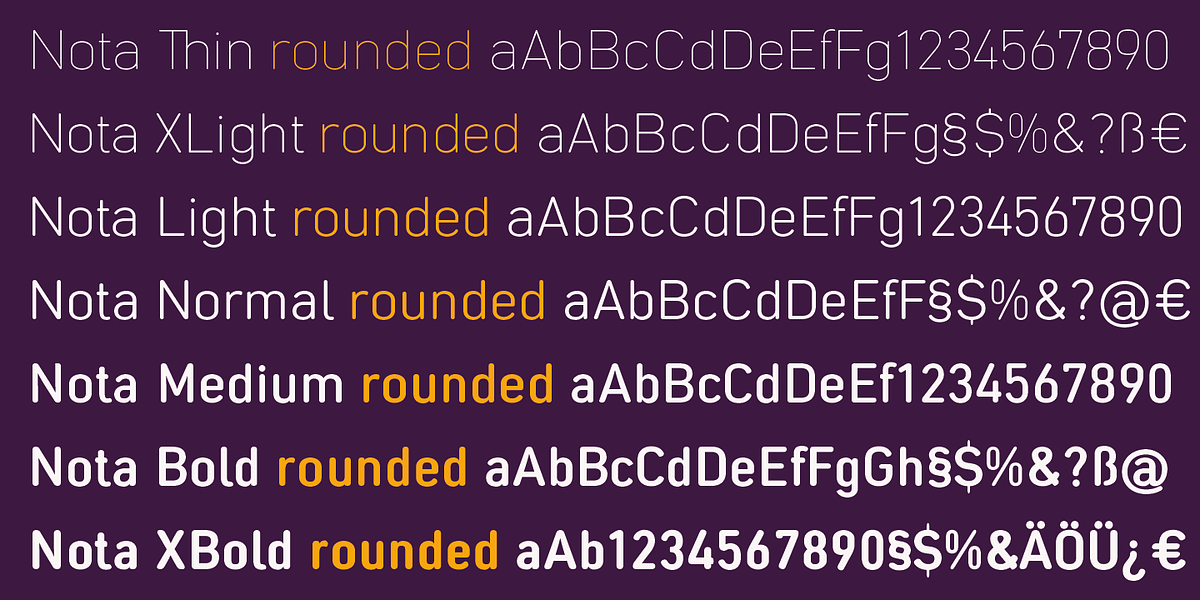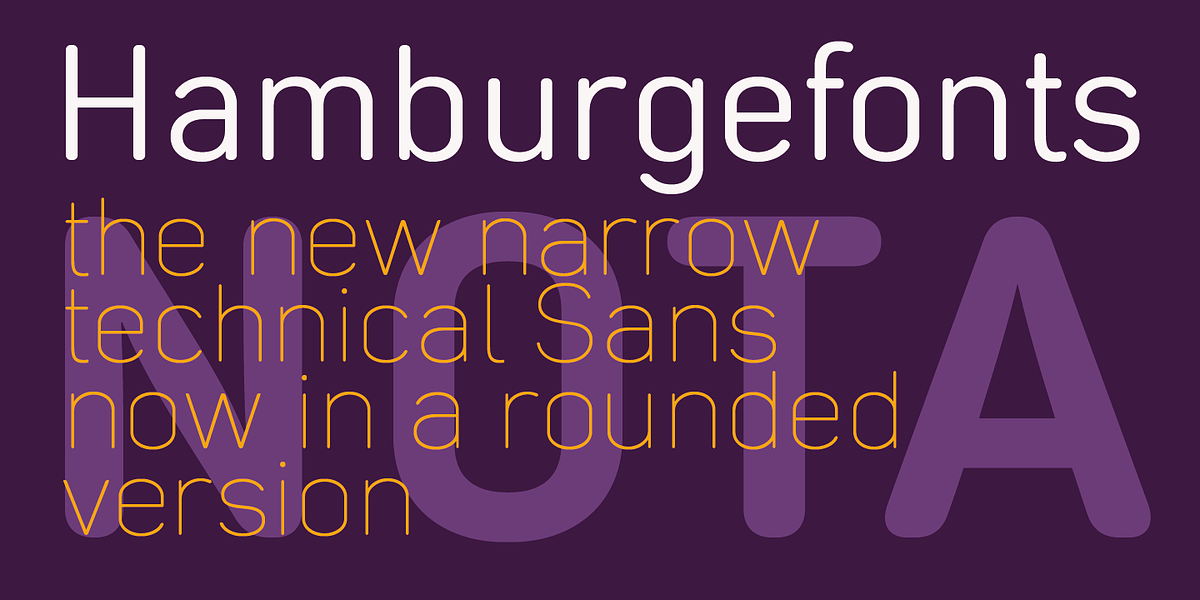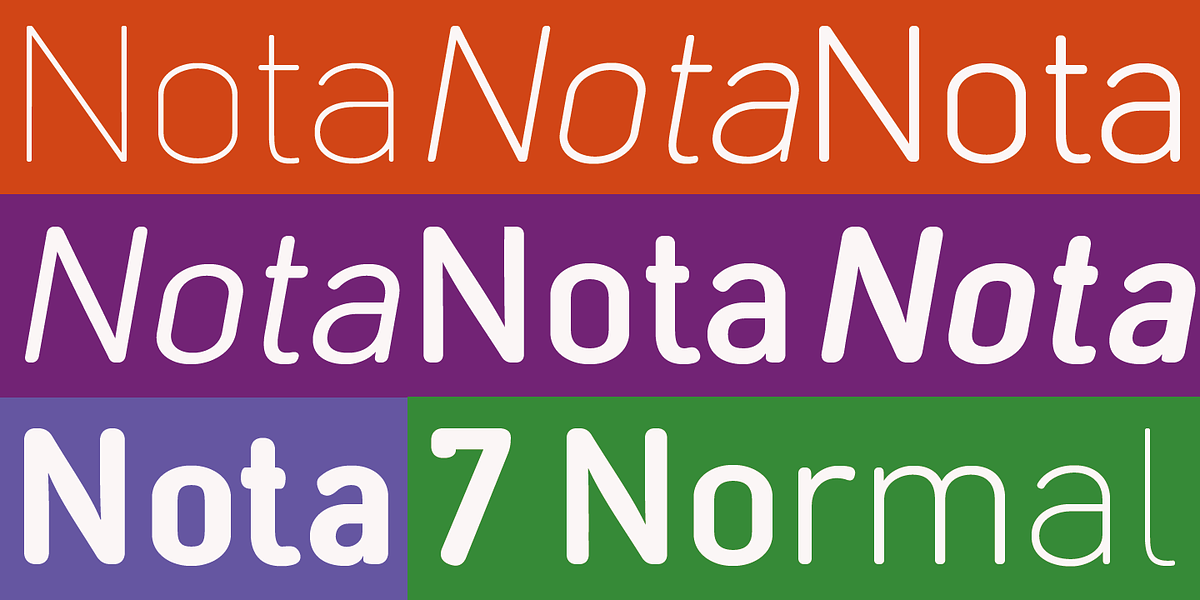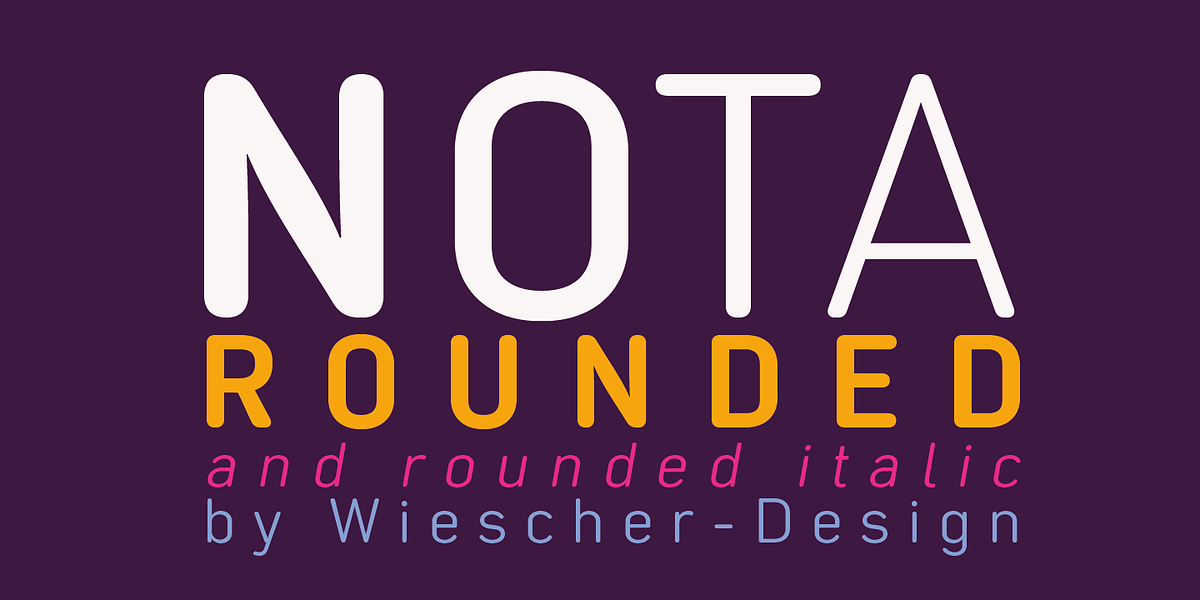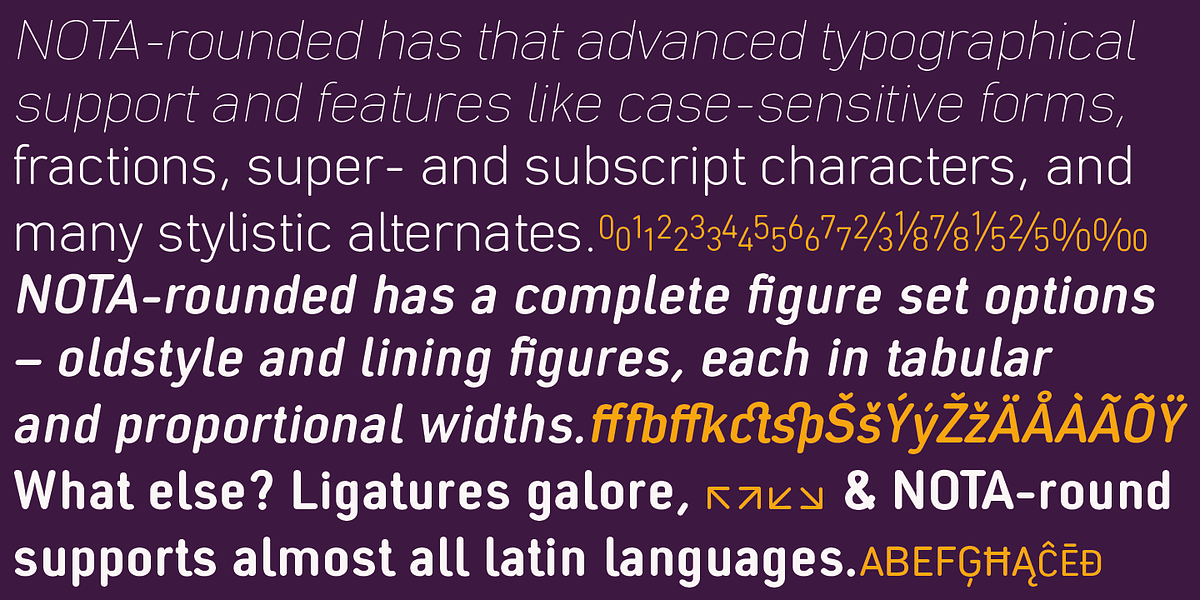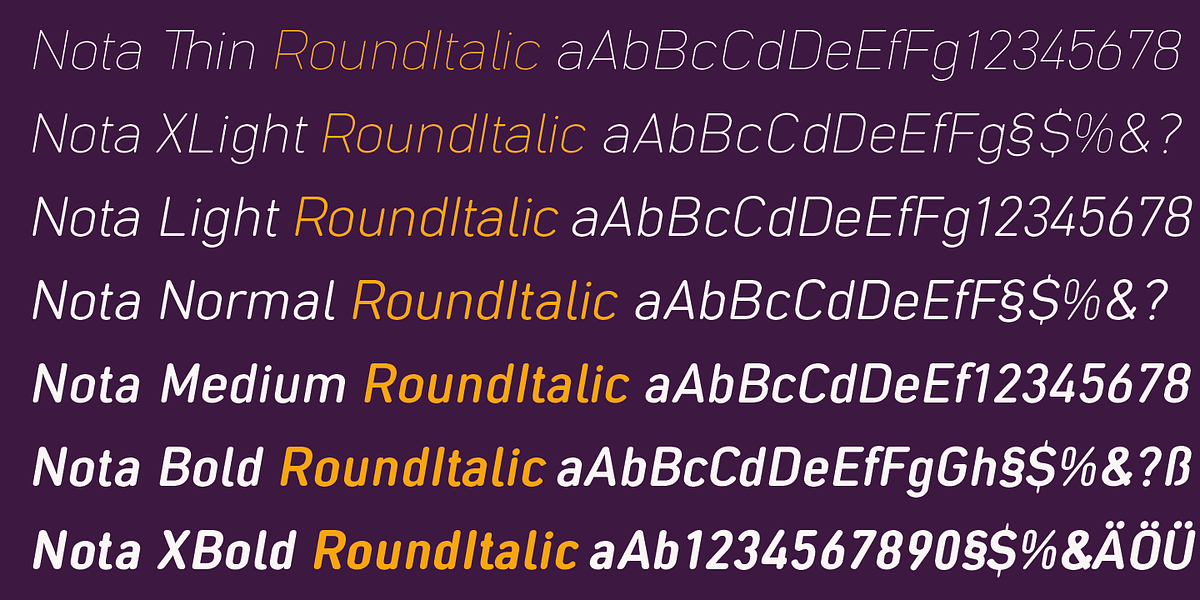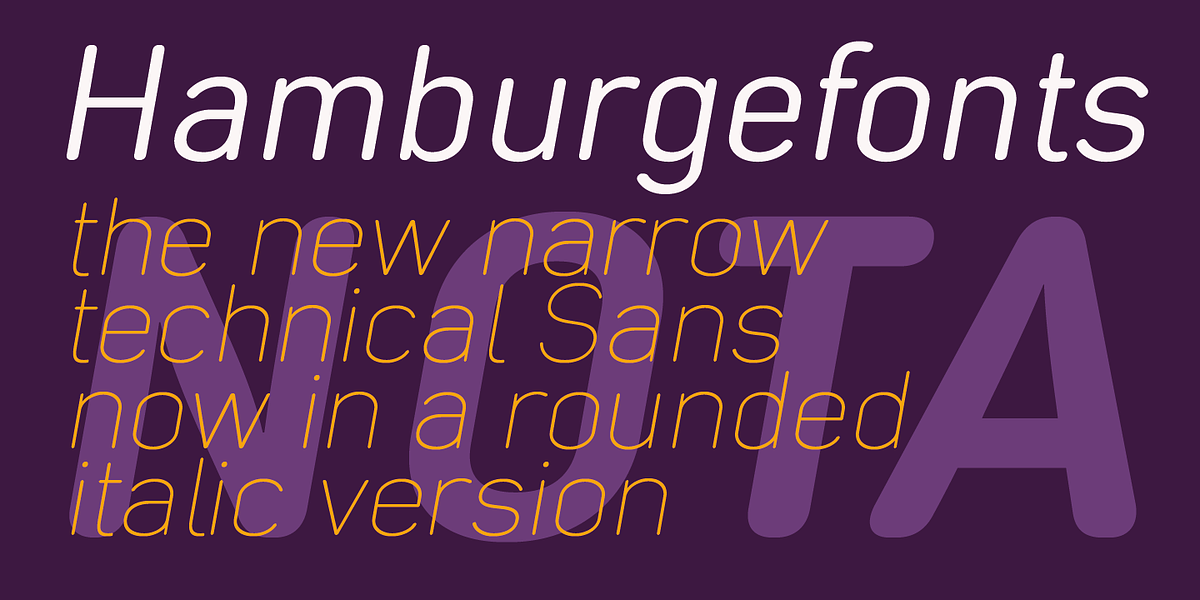
Nota-Rounded
Nota Rounded is a neo-grotesque sans serif font designed by Gert Wiescher. It features rounded corners, giving it a softer appearance than traditional geometric sans serifs. The typeface comes in seven weights with corresponding oblique styles, making it versatile for various applications. With an extended character set supporting over 700 glyphs and extensive kerning, Nota Rounded is well-suited for both display and body text use.